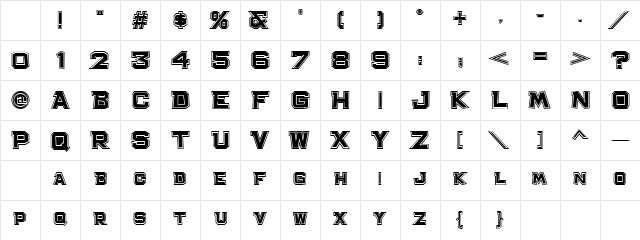
Complete Bachelor Pad College JL Regular glyph index. Displaying only characters natively supported by Bachelor Pad College JL Regular font.
Bachelor Pad College JL brings high-energy athletic personality to the page - its confident, muscular forms are built for impact.
Pro Tip: Use Bachelor Pad College JL in all-caps headlines where its athletic energy can fully express itself. Pair with a solid, simple sans for supporting text.